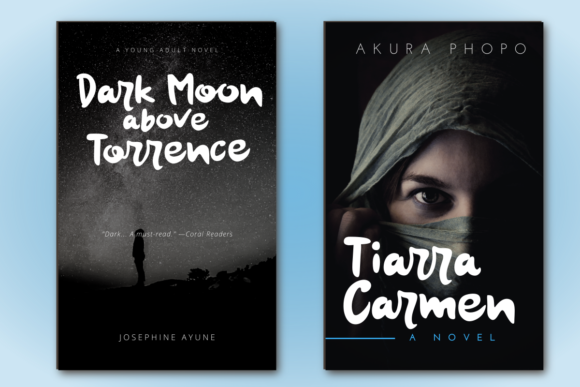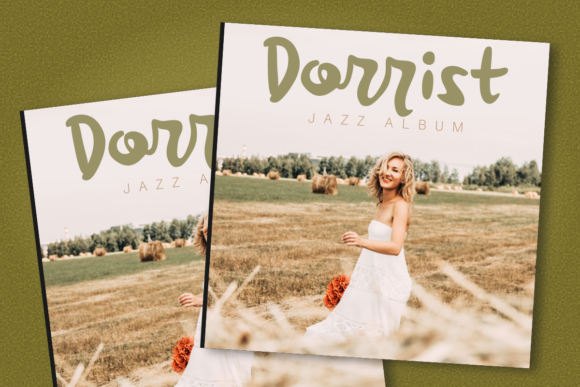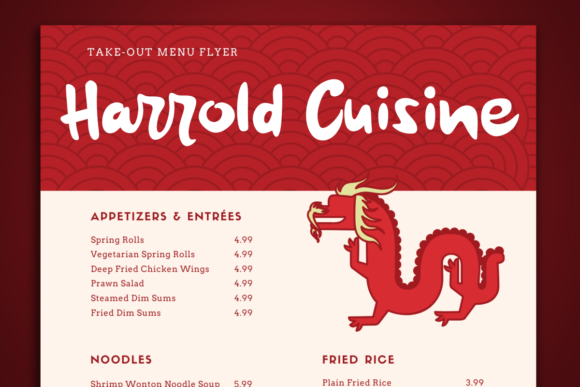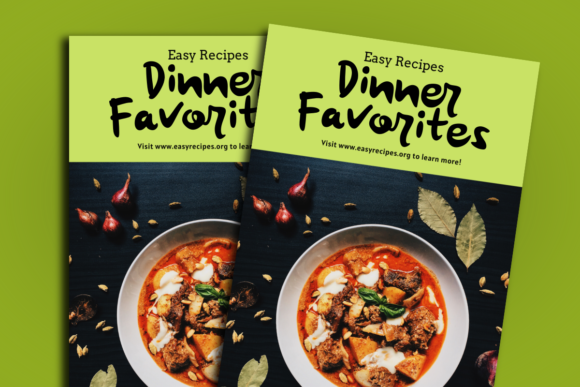
Introduction to Parsley Brush Font
Have you ever been brainstorming a creative project, pouring over design ideas, and then suddenly, the perfect font pops into your head? For designers, finding the right font can be a game-changer, and that’s exactly what the Parsley Brush Font does.
As a chunky lettered handwritten font, created with the help of a lovely brush pen, the Parsley Brush Font brings a touch of elegance and sophistication to any design. Its versatility makes it perfect for wedding invitations, thank you cards, quotes, greeting cards, logos, business cards, and every other design that needs a handwritten touch.
Whether you’re looking for a high-quality design resource or a free download to add a personal touch to your creative project, the Parsley Brush Font is a valuable asset for designers. With its transparent background and high-quality design, it’s perfect for adding a personal touch to any design, from social media graphics to print materials.
Key Features of Parsley Brush Font
- High-quality, hand-drawn design ideal for creative projects requiring a unique touch
- Perfect for designers seeking a stylish, brush-style font to elevate their creative project
Honest Review: Parsley Brush Font
I recently had the chance to work with the Parsley Brush Font and I must say it’s been a game-changer for my design projects. This font is perfect for adding a personal touch to any creative project.
Here are some things that work well with the Parsley Brush Font:
- ✨ High-quality design that adds a unique touch to any project.
- ⚠️ Limited font sizes available, which can be restrictive for certain design applications.
- ⚠️ Some characters may not be compatible with all design software, requiring additional editing.
Overall, I’m impressed with the Parsley Brush Font. It’s a valuable design resource that can elevate any creative project. While it has its limitations, the benefits far outweigh the drawbacks. I highly recommend giving it a try for your next design project.
Tips for Getting the Most Out of Parsley Brush Font
To get the most out of the Parsley Brush Font, be sure to:
1. Use it on a transparent background to create a seamless design.
2. Experiment with different font sizes and styles to add visual interest to your design.
3. Combine the Parsley Brush Font with other design elements to create a unique and eye-catching visual effect.
Common Use Cases for Parsley Brush Font
The Parsley Brush Font is a versatile design resource that can be used in a variety of creative projects, including:
Is the Parsley Brush Font available for use in design software?
Yes, the Parsley Brush Font is compatible with a wide range of design software, including Adobe Creative Cloud applications, such as Photoshop and Illustrator, as well as other popular design tools. The font’s high-quality, vector format ensures that it will display crisply and clearly in any design project.